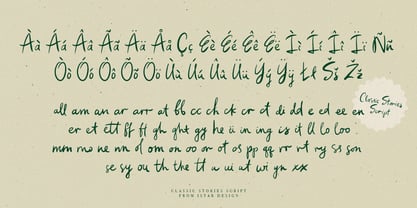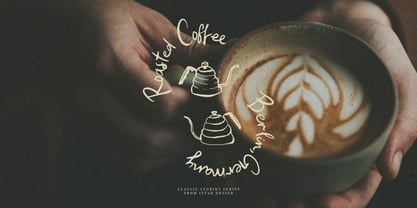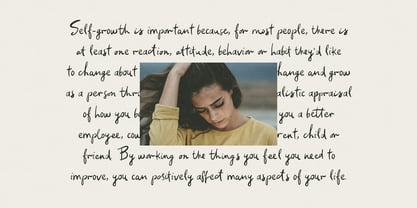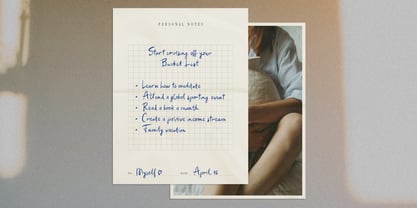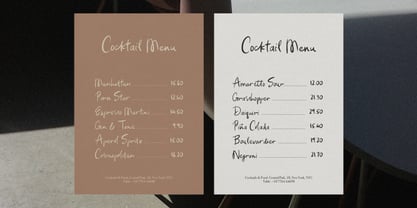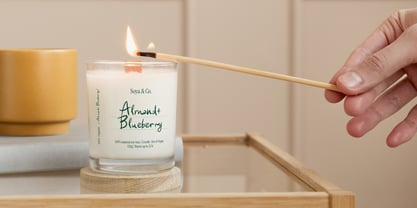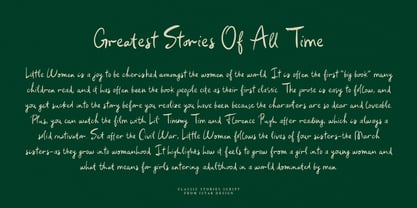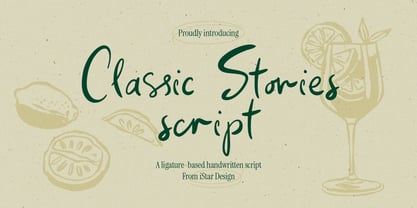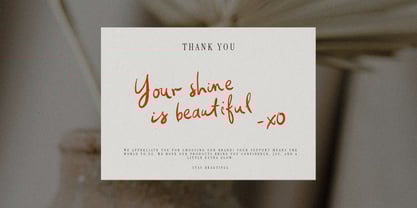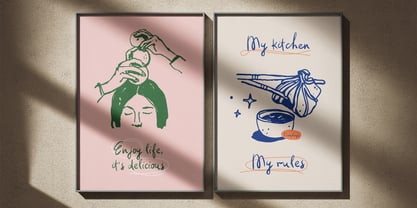
Classic Stories
by Tetiana Bunakova
The Classic Stories Font Family was designed by Tetiana Bunakova and published by Tetiana Bunakova. Classic Stories contains 1 styles. More about this family
Classic Stories Script is designed to add natural looking handwritten touch to your projects. With seamless opentype ligatures, each letter flows beautifully, creating an authentic, cohesive look. Ideal for social media, professional presentations, or any creative endeavor that calls for a personal touch.
Hello! My name is Tetiana and I design fonts under the foundry name of iStar Design. After spending 15 years as a brand designer and Art Director I was ready for a new challenge. I discovered a passion in hand lettered font designs, and launched my first typeface this year. I've evolved my business into a type foundry, aspiring to revolutionize the design realm by offering a collection of captivating, unique typefaces that diverge from conventional letterforms. I am now fully committed to pursuing this newfound passion from the comfort of my home studio in Kharkiv, Ukraine. Among my other passions, I particularly enjoy spending time outdoors, discover new countries, read detective fiction.